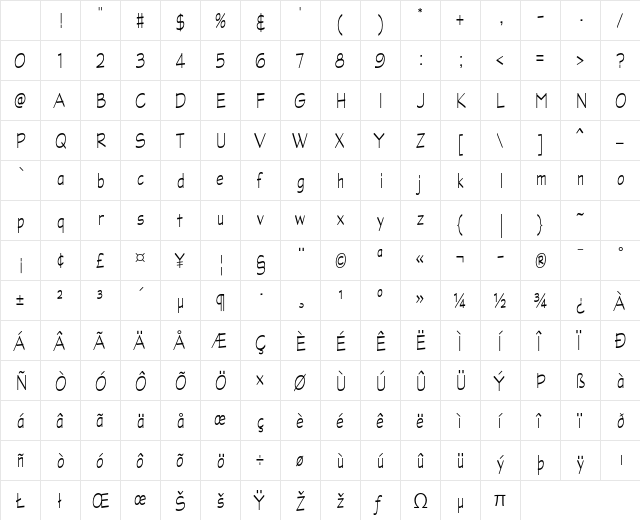
Complete Graphite Std Light Narrow glyph index. Displaying only characters natively supported by Graphite Std Light Narrow font.
Graphite Std is a composed and adaptable typeface that performs quietly and consistently across a wide range of design contexts. Its slender proportions lend an understated elegance to any composition. Its narrow stance lets it pack a punch even in space-constrained designs.